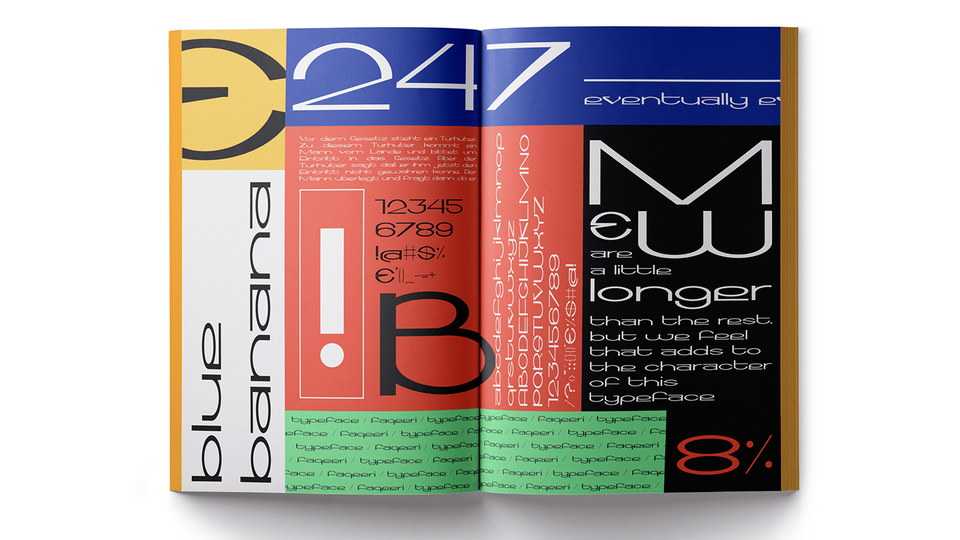
Download Faqeeri font, a purely experimental sans serif typeface with a weird futuristic kick to it. Currently in regular weight, Faqeeri offers a contemporary vibe to your next project’s headings.